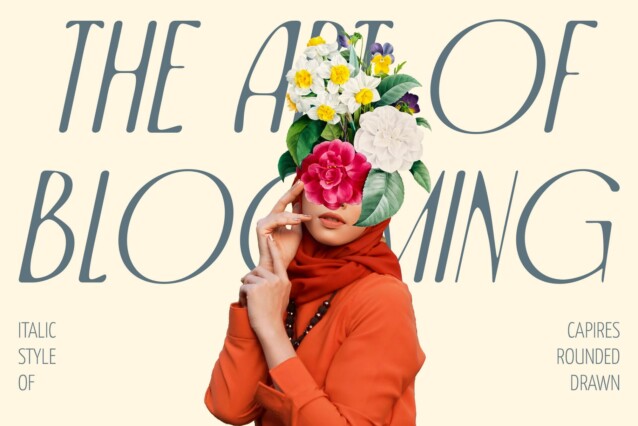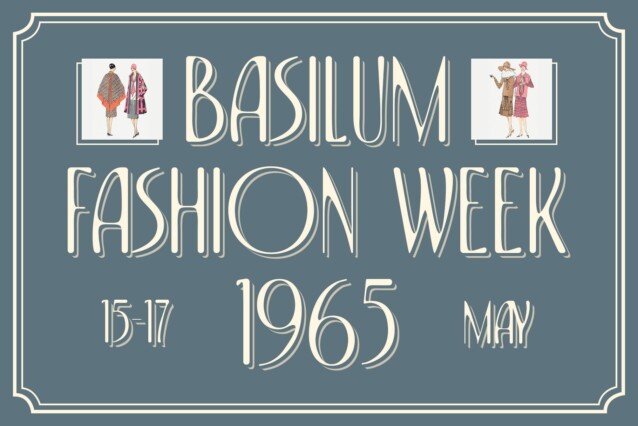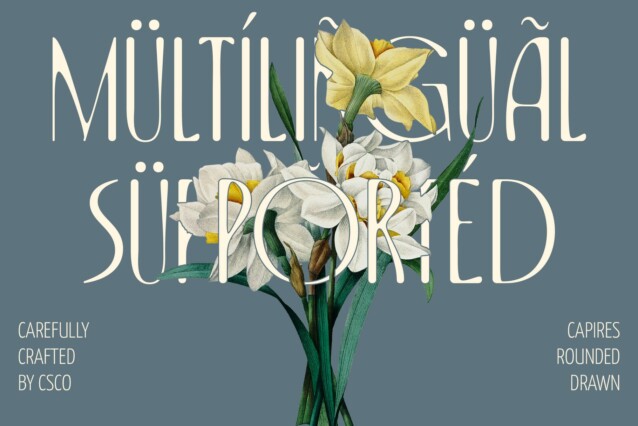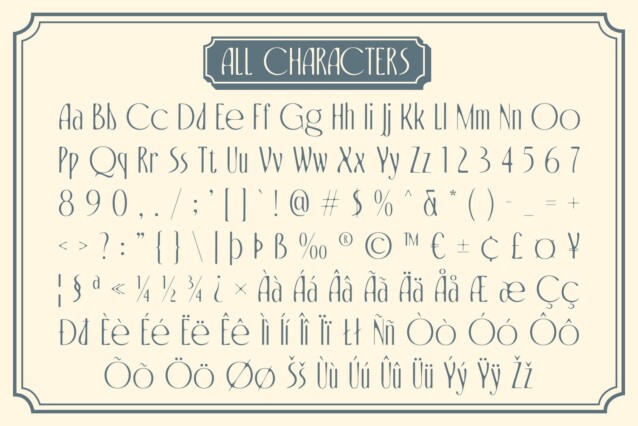
Capires Rounded Drawn Font
Capires Rounded Drawn Font is a modern sans-serif font that combines the geometric elegance of Art Deco with a hand-drawn effect, offering a fresh balance between sleek design and artistic individuality. The clean lines of Art Deco are softened by rounded edges, creating a bold yet approachable style. This unique fusion of structured form and artistic touch makes the font stand out, perfect for creative projects that seek a sophisticated but personal appeal.